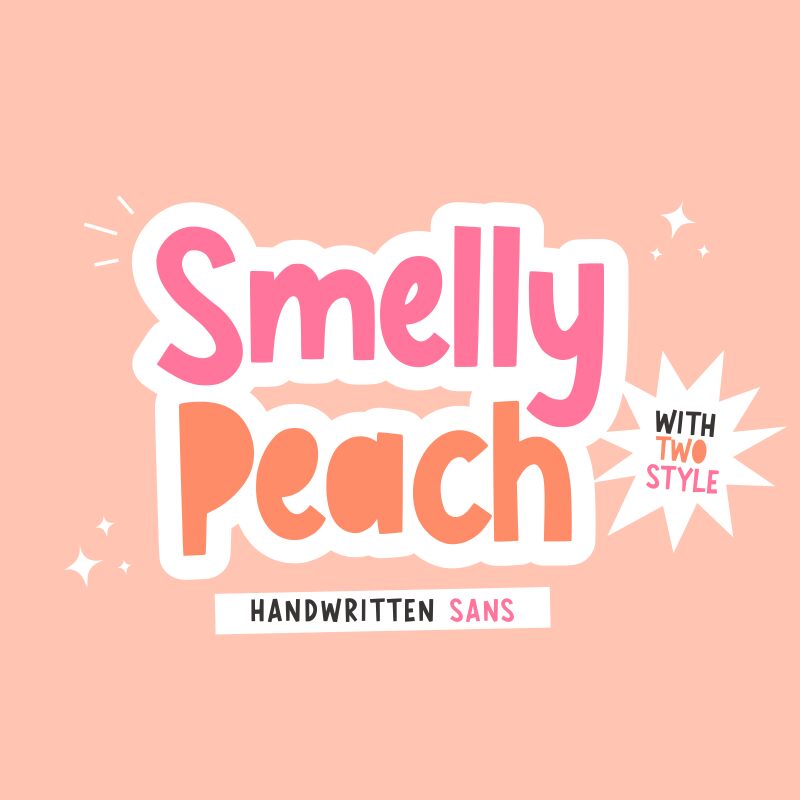
Smelly Peach
Introducing Smelly Peach - a playful and creative display font designed by Allouse.Studio. This unique cartoon-style font is perfect for crafting eye-catching titles and logos, as well as bringing a fun twist to your social media posts and website headers.